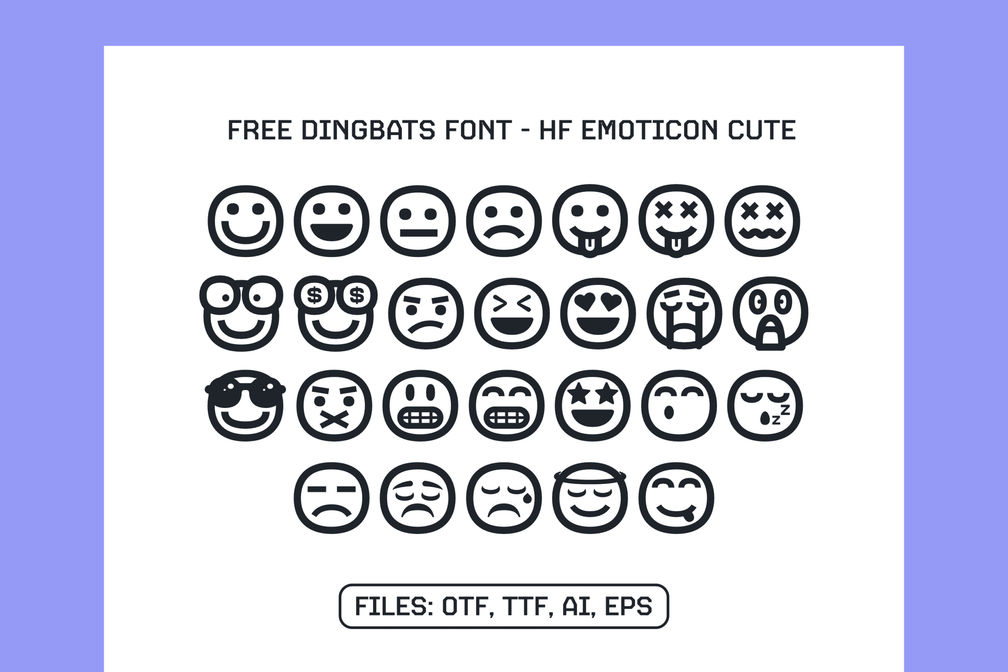
Free! HF Emoticon Cute Dingbats Font
A font in the form of an icon that will boost your design.
The dingbats font is a cute emoticon expression with a line style, which you can use for free for personal and commercial work.